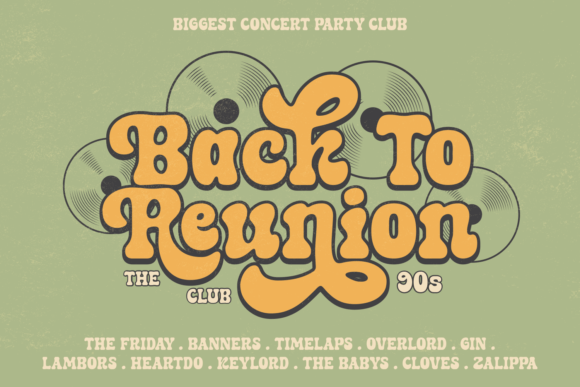
Retro Boogy Font
Retro Boogy is a retro-themed serif font that embodies the essence of vintage and boogie aesthetics. This font combines the classic charm of serif typography with a groovy twist, creating a captivating and unique look for your designs.
Inspired by the boogie era and disco music, Retro Boogy font exudes excitement and cheerfulness from the bygone years. Each letter features elegant and dramatic curves, capturing the essence of retro style.
The font also includes decorative swashes that adorn each letter, adding a touch of artistic flair and luxury. These swashes provide the flexibility to create captivating headlines or titles with visually appealing details.
With its retro, groovy, and vintage characteristics, Groovy Vintage Boogie font is ideal for posters, packaging, film titles, and other creative projects that demand visually striking and distinctive elements. It effortlessly brings the nostalgia of past eras while maintaining a modern and captivating aesthetic.